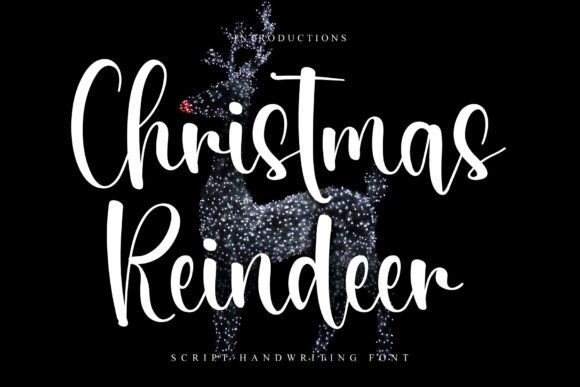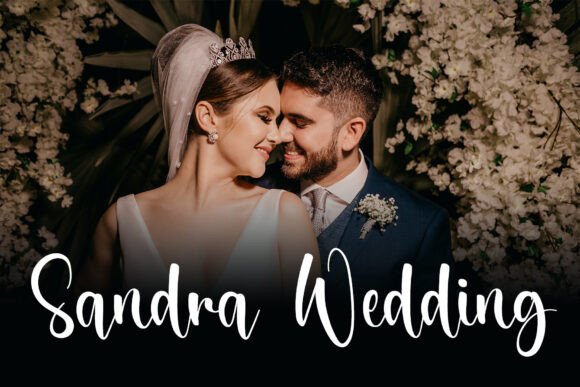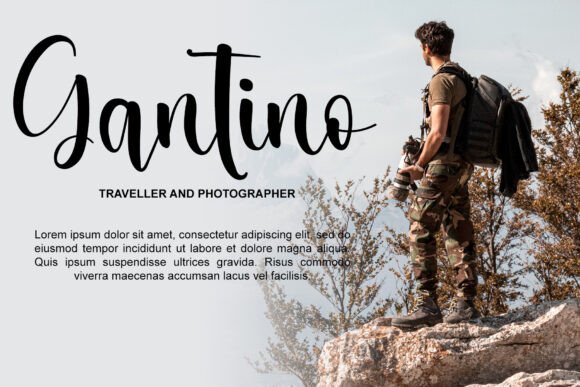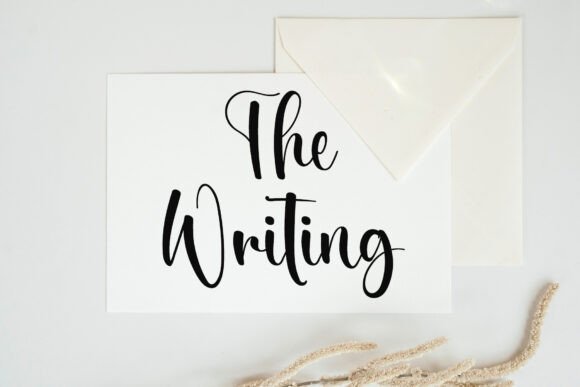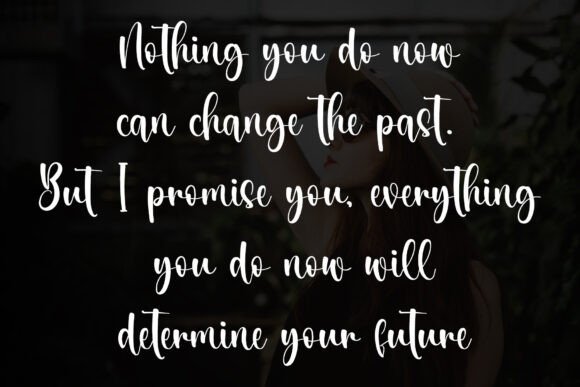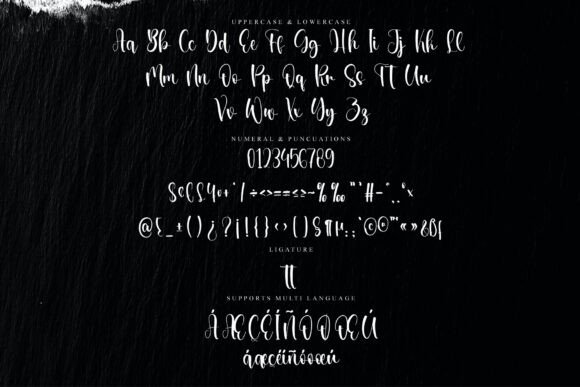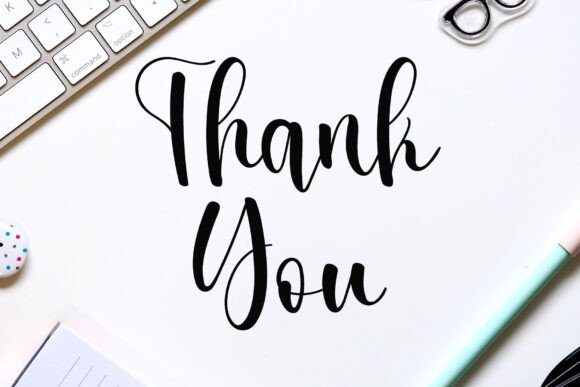
Unleash the Magic of the Season with the Christmas Reindeer Font
There’s something special about the holiday season, when creativity flows freely and the world feels like a whimsical wonderland. For designers, this time of year is a chance to get creative and infuse their projects with a dash of festive flair. And what better way to do that than with the perfect font?
Enter the Christmas Reindeer Font, a stylish handwritten font that exudes a contemporary atmosphere and impeccable form. Inspired by timeless classic calligraphy, this beautiful font is designed to elevate the beauty of your projects and make them truly unforgettable. Whether you’re crafting holiday cards, designing festive packaging, or creating digital art, the Christmas Reindeer Font is a valuable addition to any designer’s toolkit.
Christmas Reindeer Font Key Features
- Font Family: A unique, festive font designed to evoke the spirit of Christmas.
- Character Set: Includes a wide range of characters, including uppercase and lowercase letters, numbers, punctuation marks, and special characters.
- Unique Characteristics: Features distinctive, hand-drawn reindeer-inspired elements and ornaments, adding a touch of whimsy to any design.
Designer Review: Christmas Reindeer Font
Overall, I think the Christmas Reindeer Font has a lot of charm and character, especially during the holiday season. ✨ The use of bold, playful lines and festive details makes it perfect for Christmas-related designs, such as cards, posters, and social media graphics.
One of the things that stands out about this font is its ability to add a touch of whimsy and fun to designs. ✨ The reindeer illustrations are well-done and add a cute, rustic feel to the font. The font’s consistency and balance make it easy to read, even for longer blocks of text.
- ⚠️ The font’s use is limited to Christmas-related designs, which may not be suitable for year-round use.
- ⚠️ The font’s illustrations may not be detailed enough for some users, which could be a drawback for those who want more intricate designs.
- ⚠️ The font’s bold style may not be suitable for all types of text, such as body copy or headlines with a lot of text.
Overall, I think the Christmas Reindeer Font is a great addition to any holiday design project. While it has some limitations, its charm and character make it a must-have for designers who want to add a touch of festive flair to their designs.